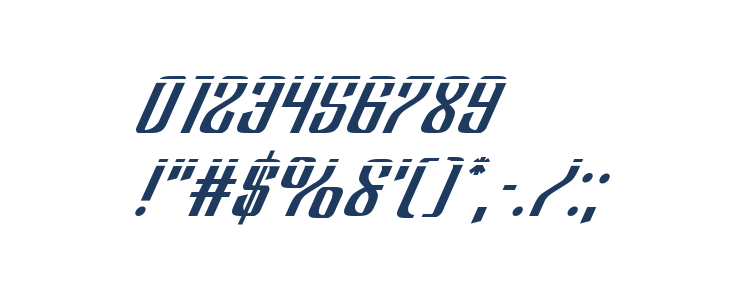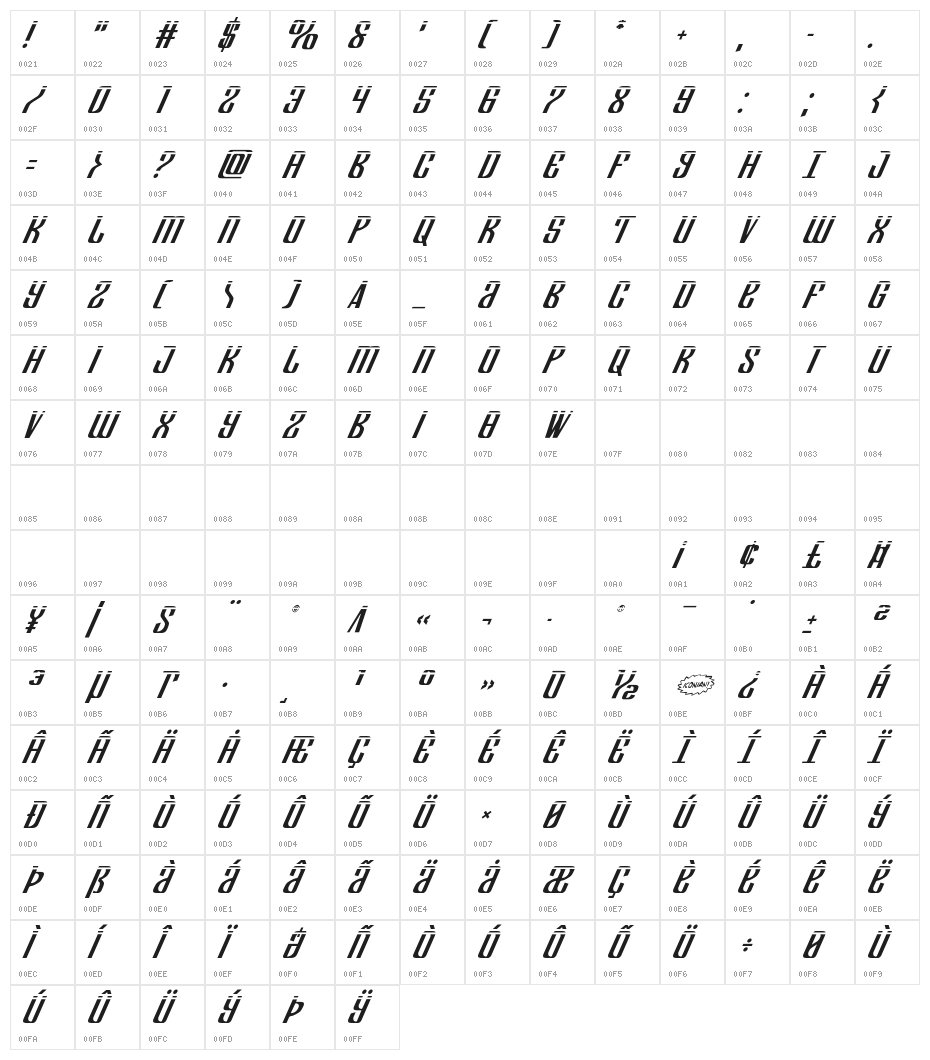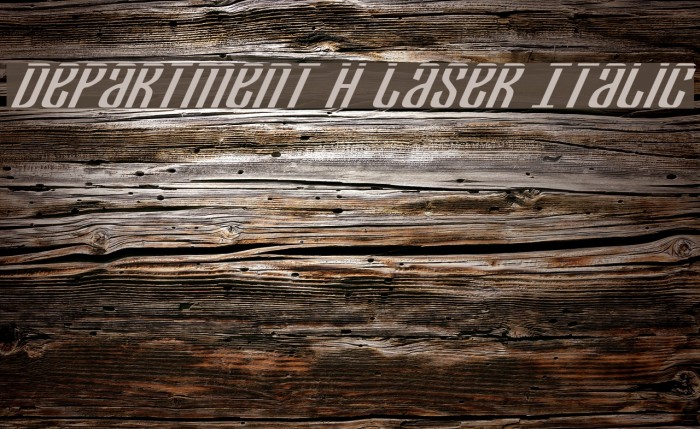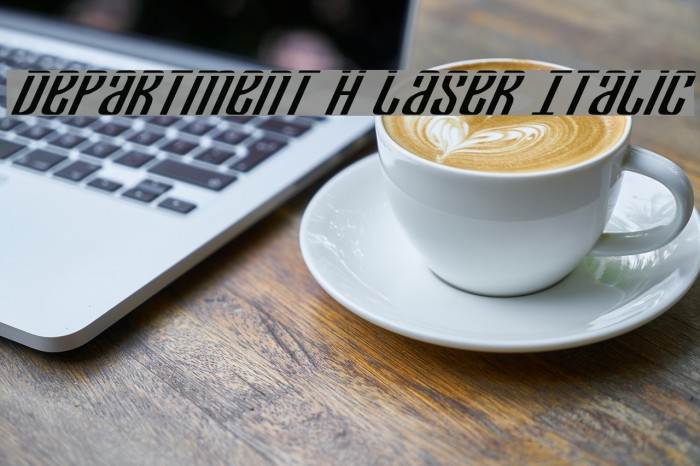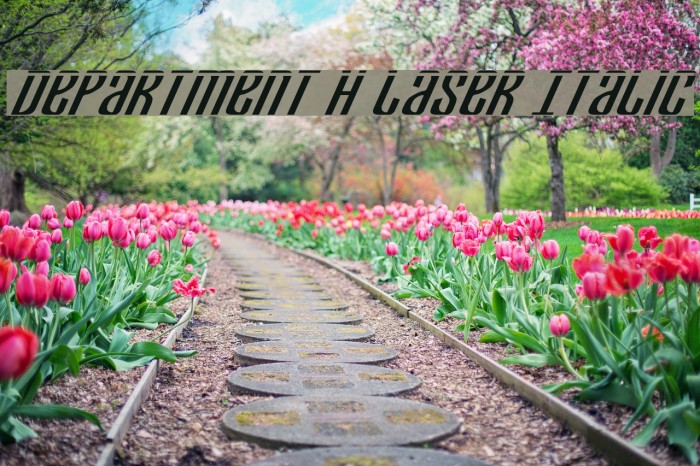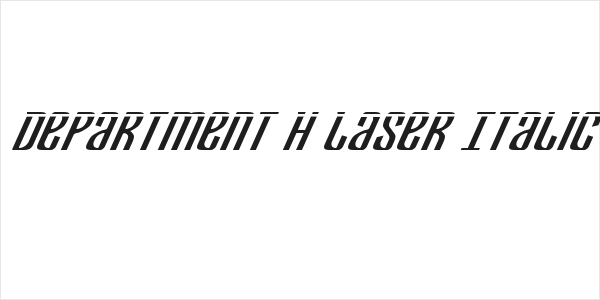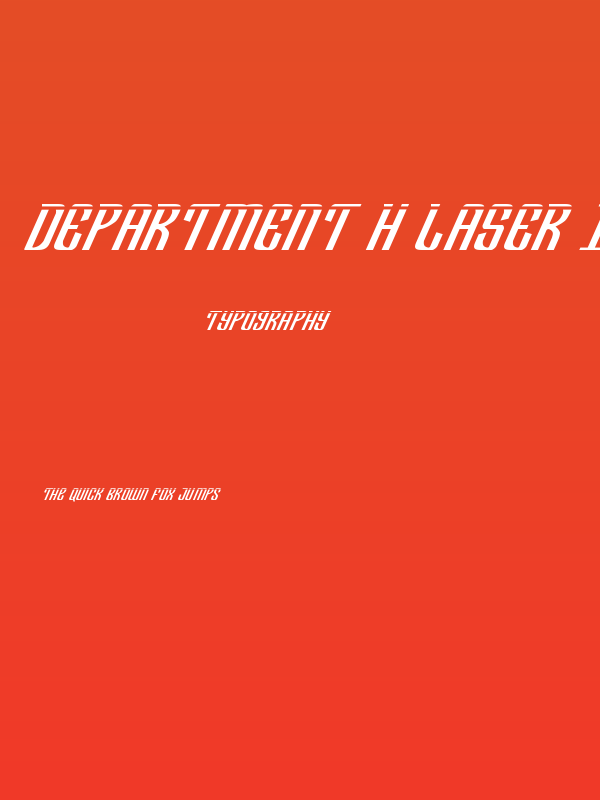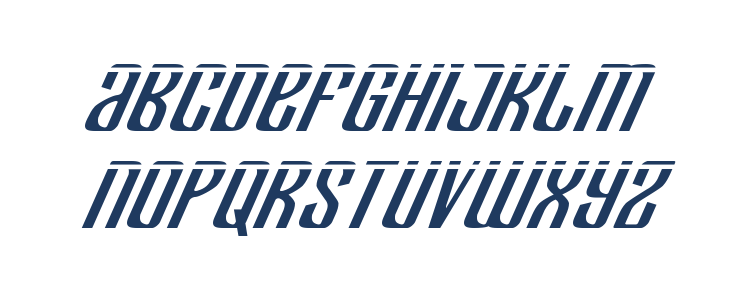
Department H Laser Italic Font
Department H Laser Italic Description
This font features a dynamic and futuristic design with a distinct italic slant, giving it a sense of motion and speed. The characters are bold and angular, with sharp edges and a consistent stroke width that conveys strength and modernity. The uppercase and lowercase letters maintain a uniform style, enhancing readability while retaining a unique aesthetic. Numbers and special characters are designed with the same attention to detail, ensuring a cohesive look across all text elements. The font's sleek and streamlined appearance makes it ideal for projects that require a contemporary and energetic feel.
| Use Case | Logos, Headlines |
| Proposed Projects | Ideal for branding, sports team logos, automotive designs, and tech-related projects. |